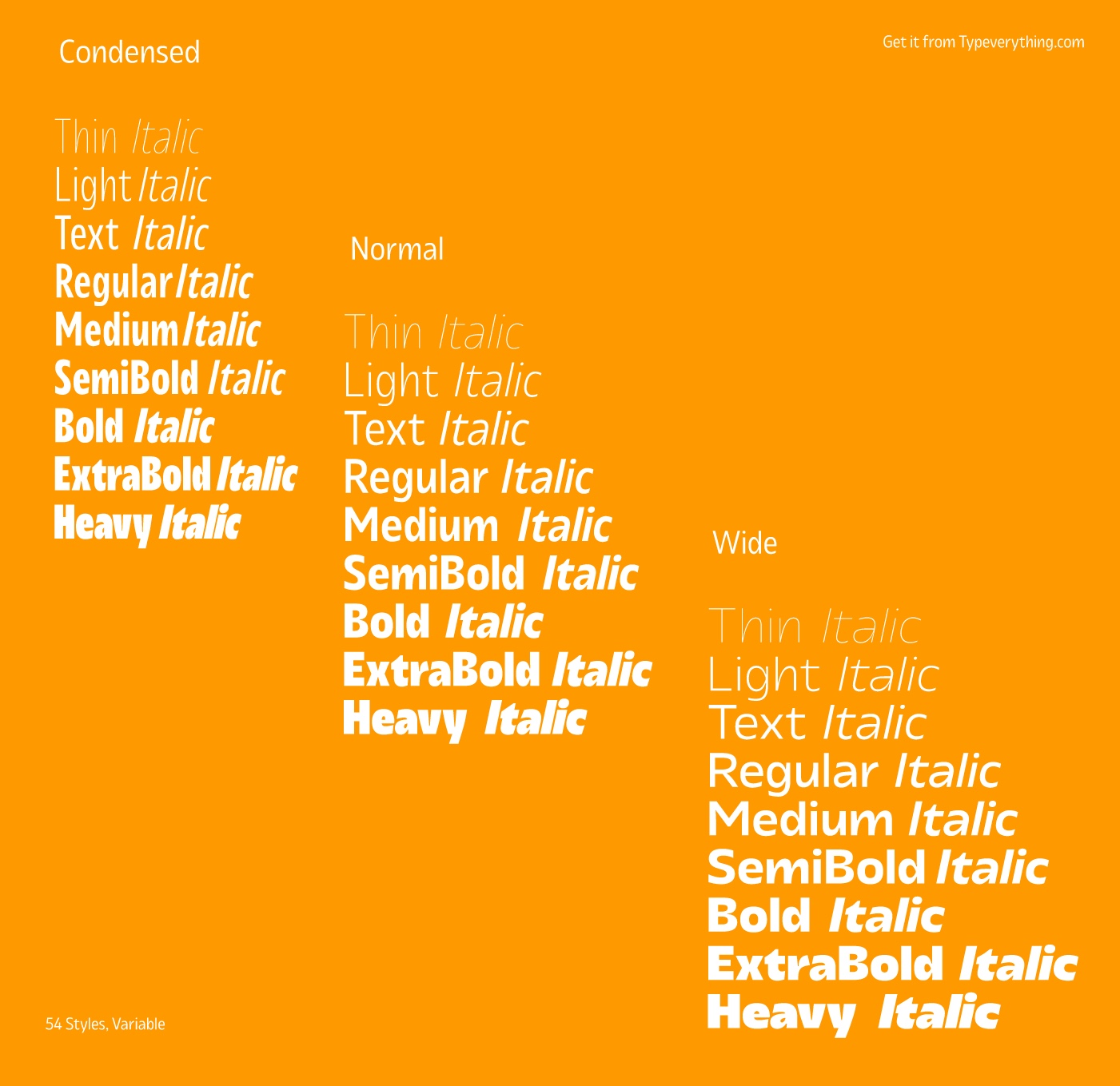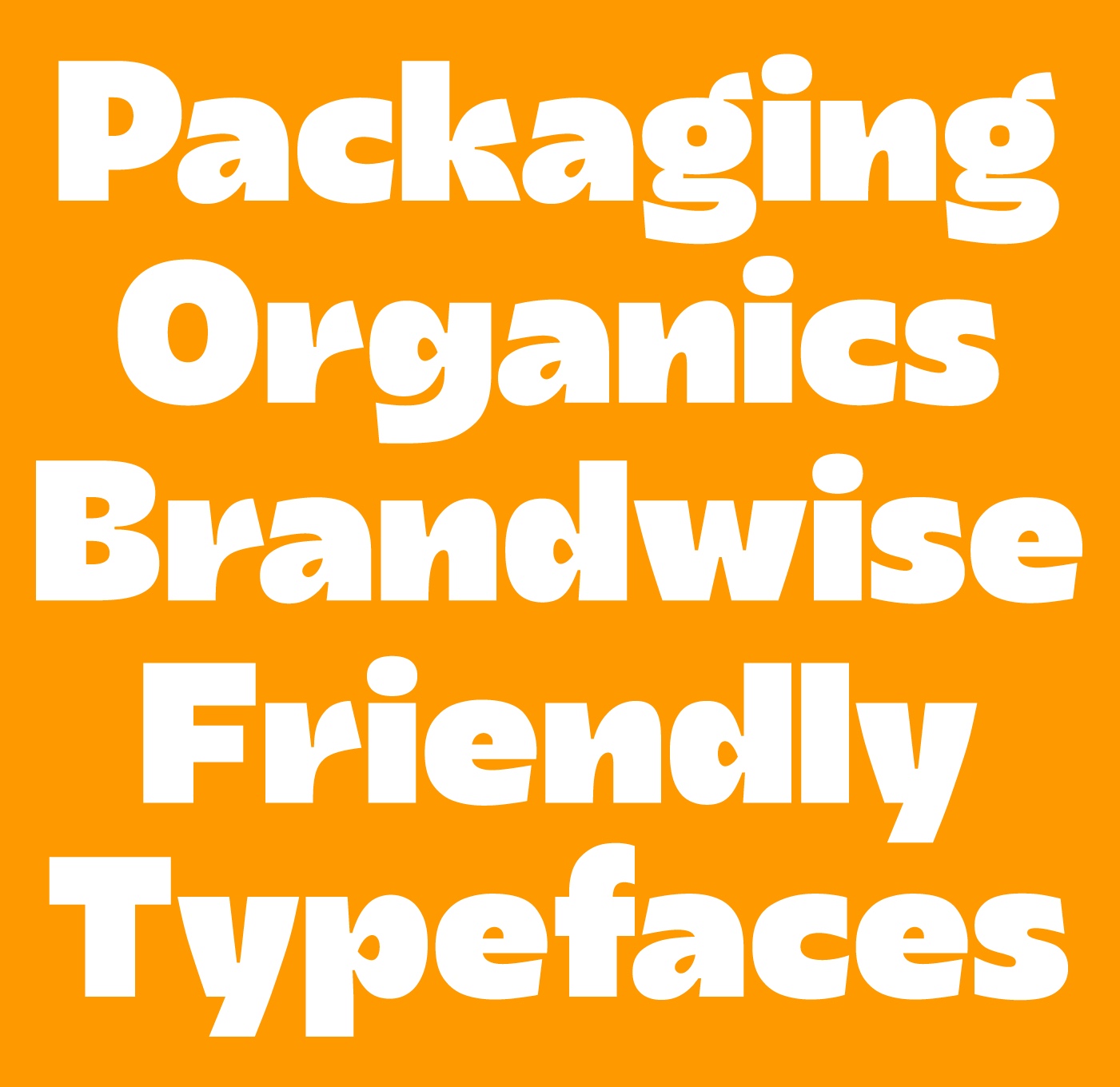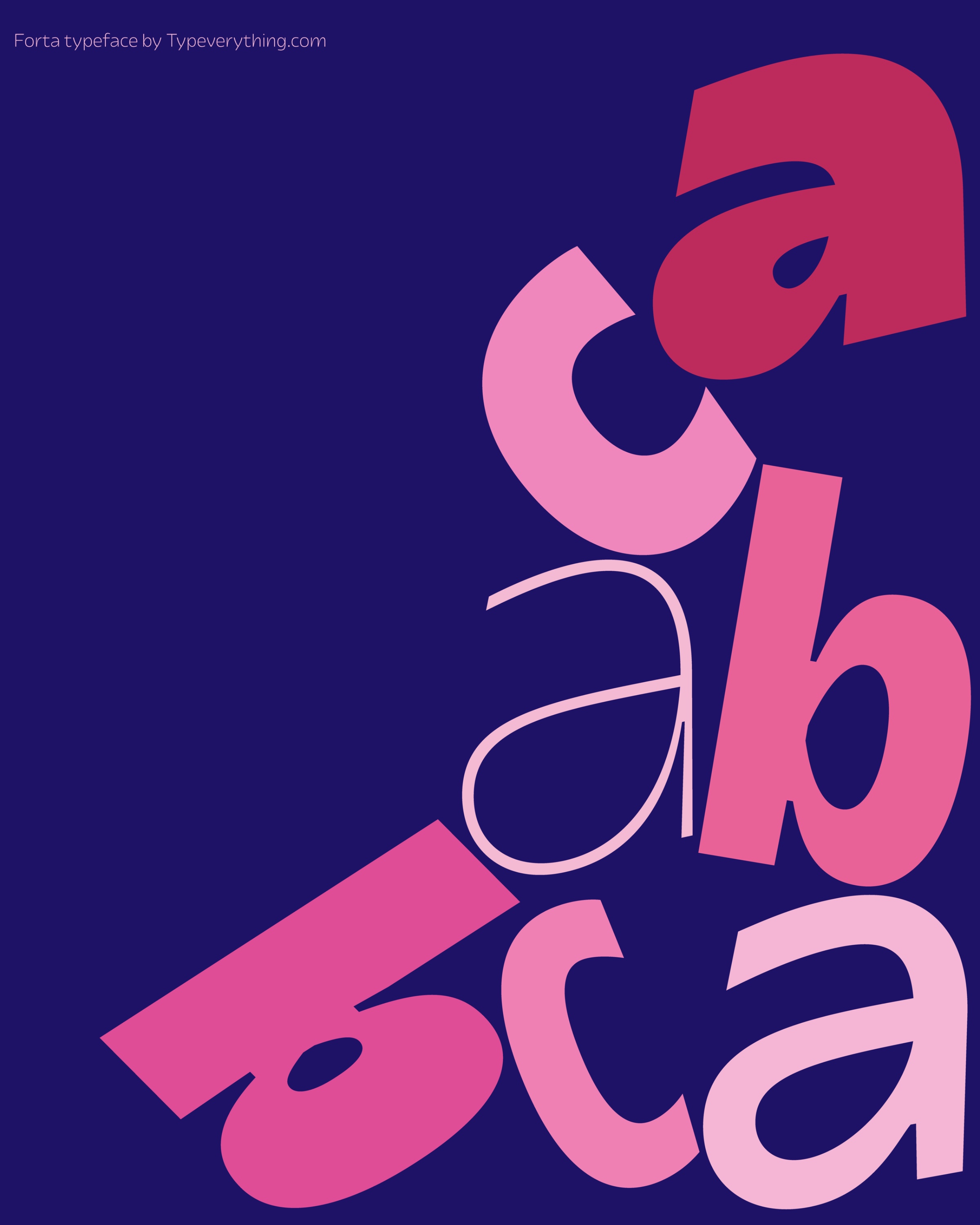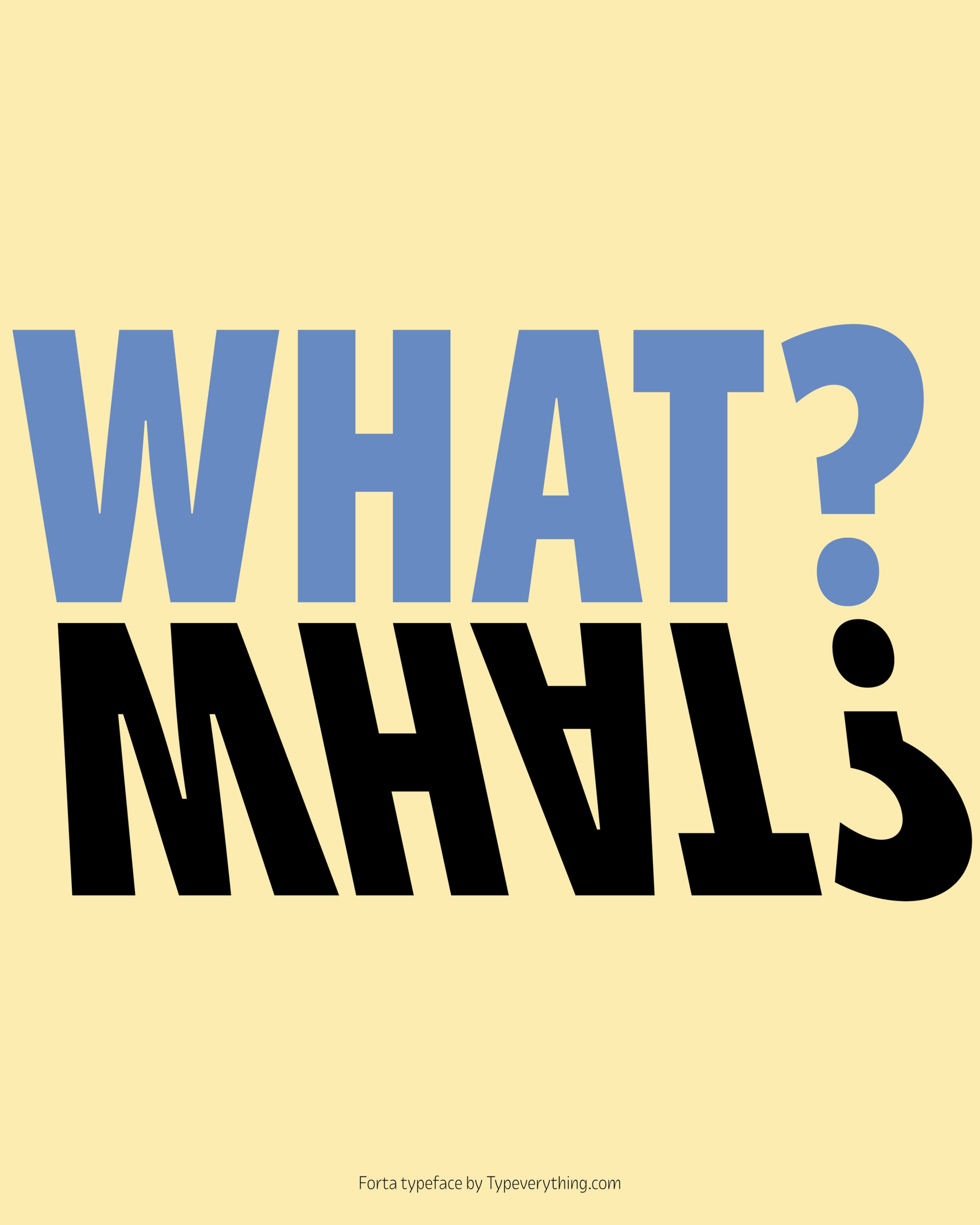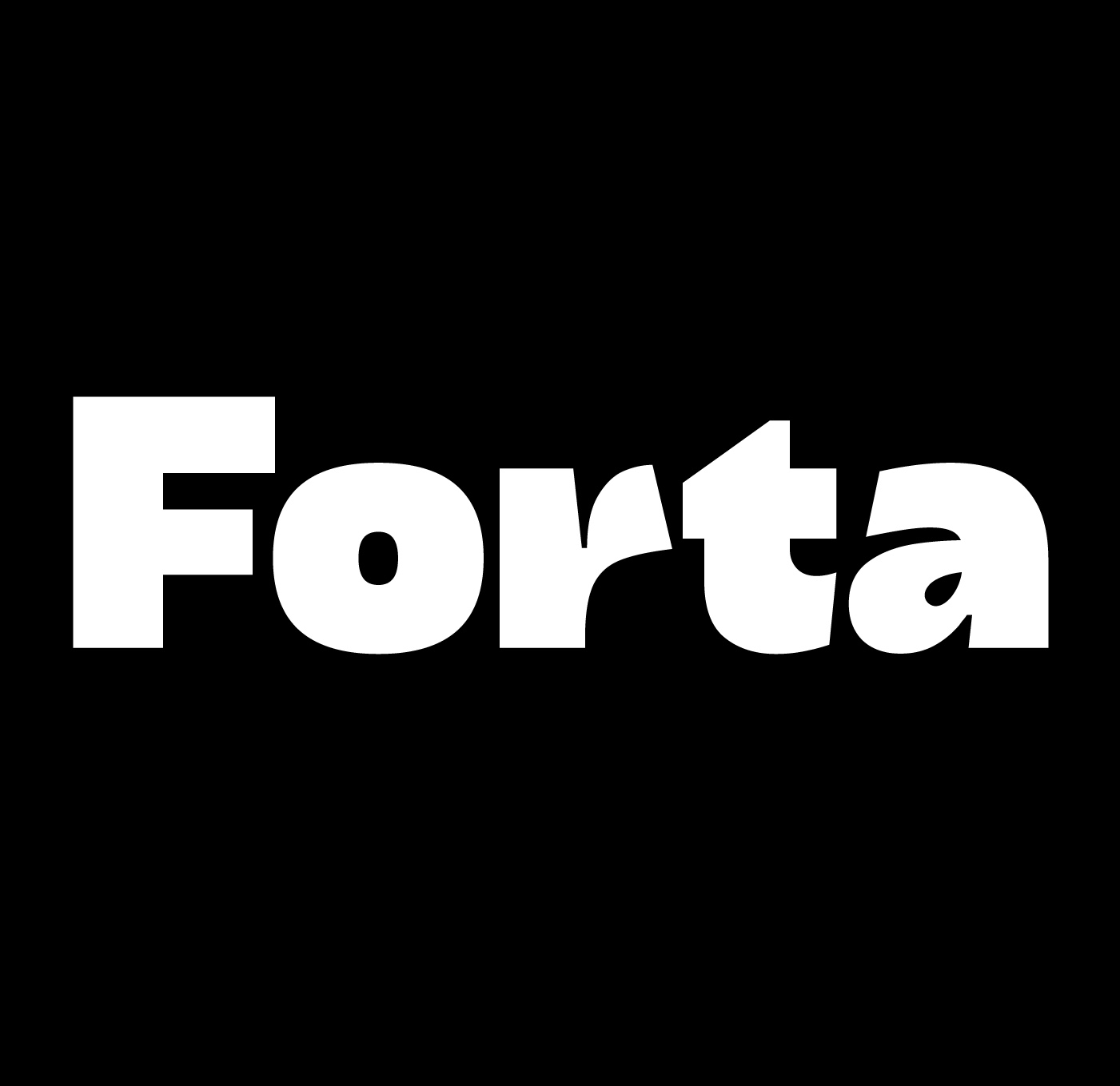
Forta Typeface by Typeverything
Forta is a new humanist sans-serif typeface designed to excel as a versatile workhorse for a wide range of applications. With 3 distinct families and 54 styles, including a variable font, Forta offers unmatched flexibility and precision. Perfect for branding, packaging, titles, editorial design, and web projects, its finely tuned letterforms balance personality with clarity, making it a reliable choice for designers who demand both functionality and style.